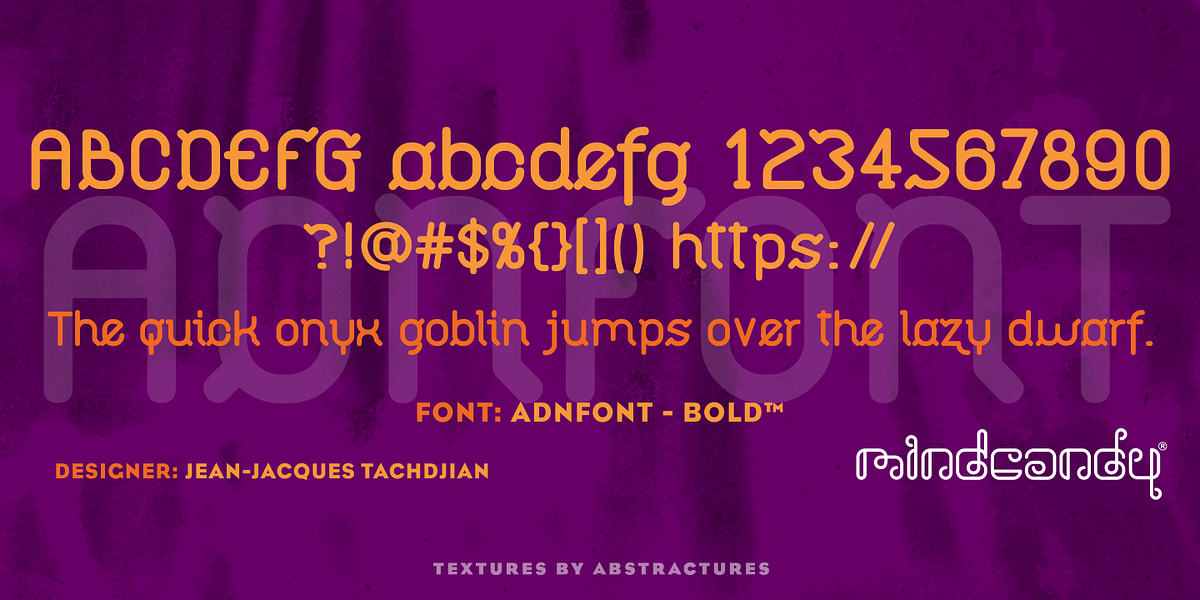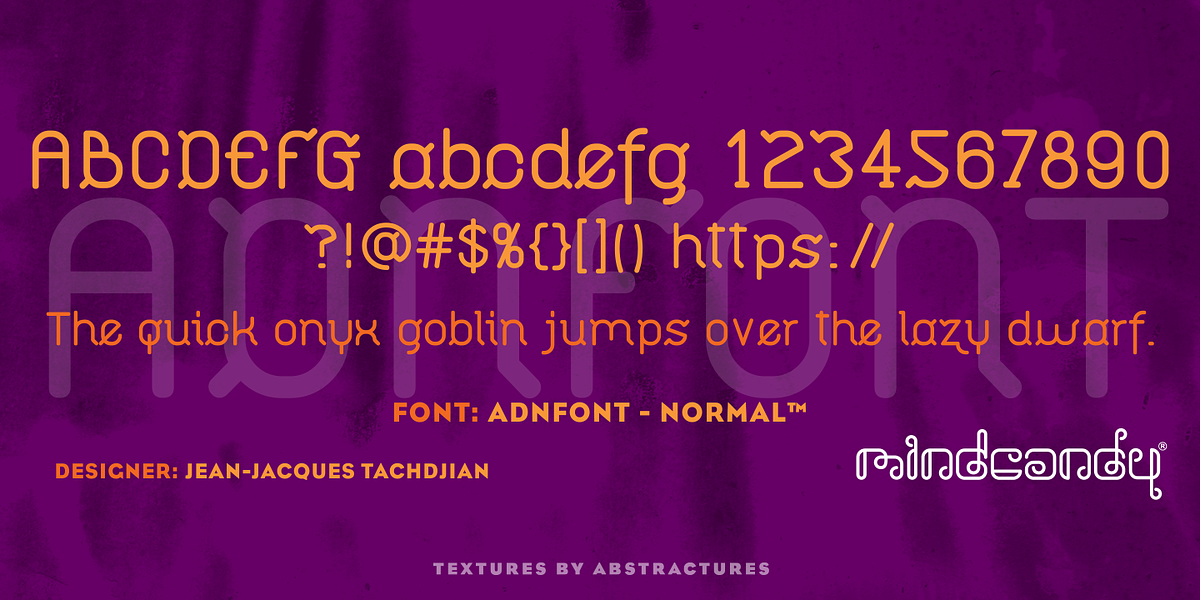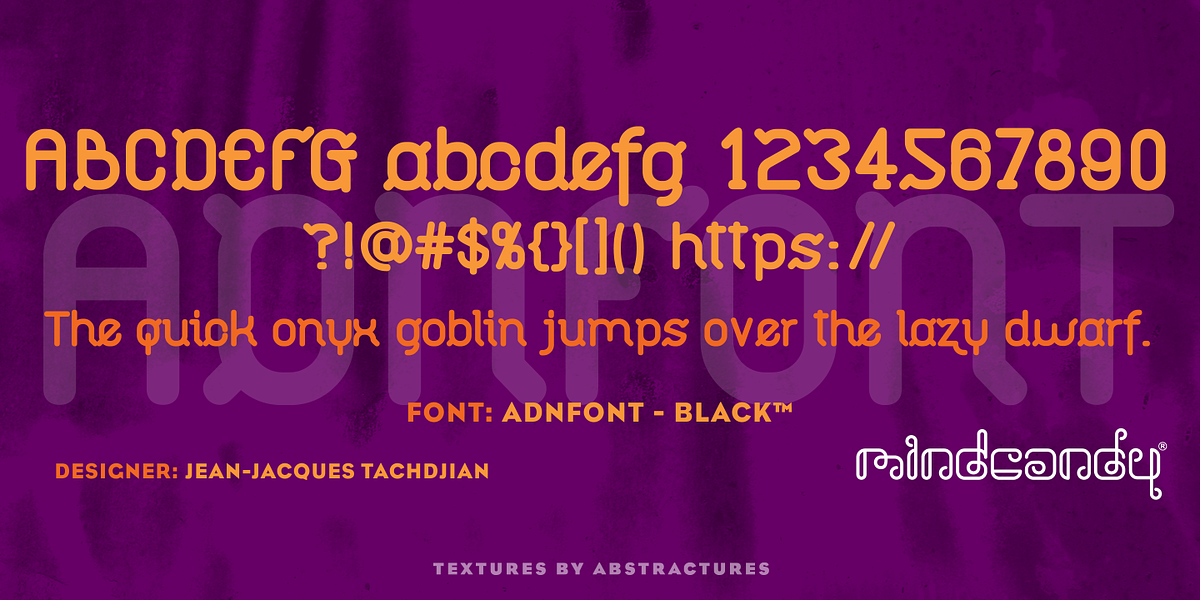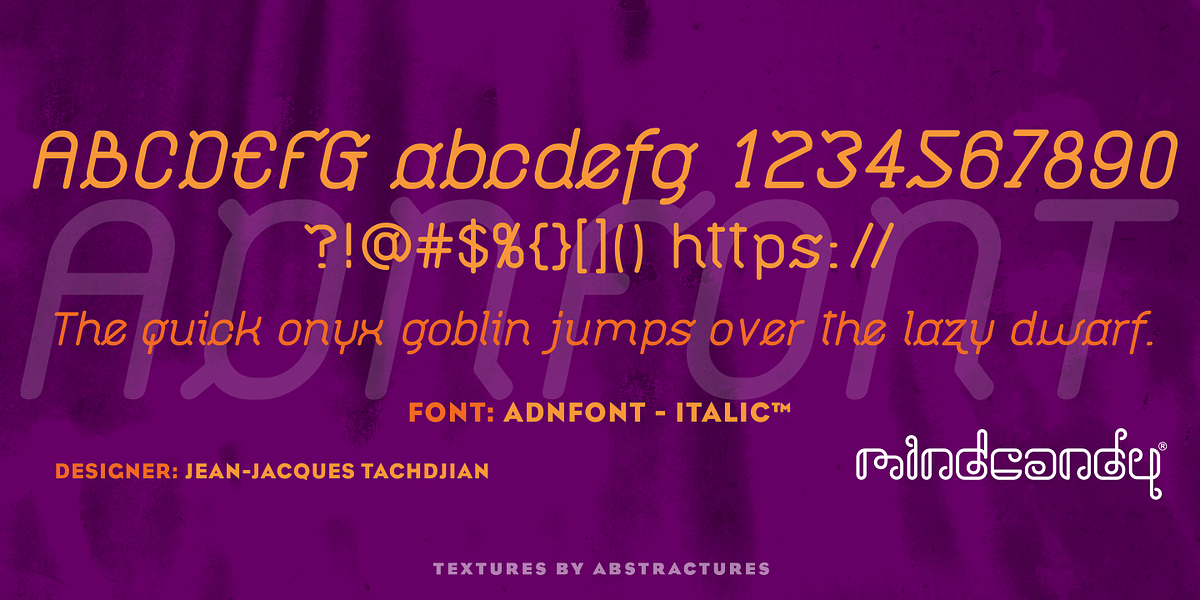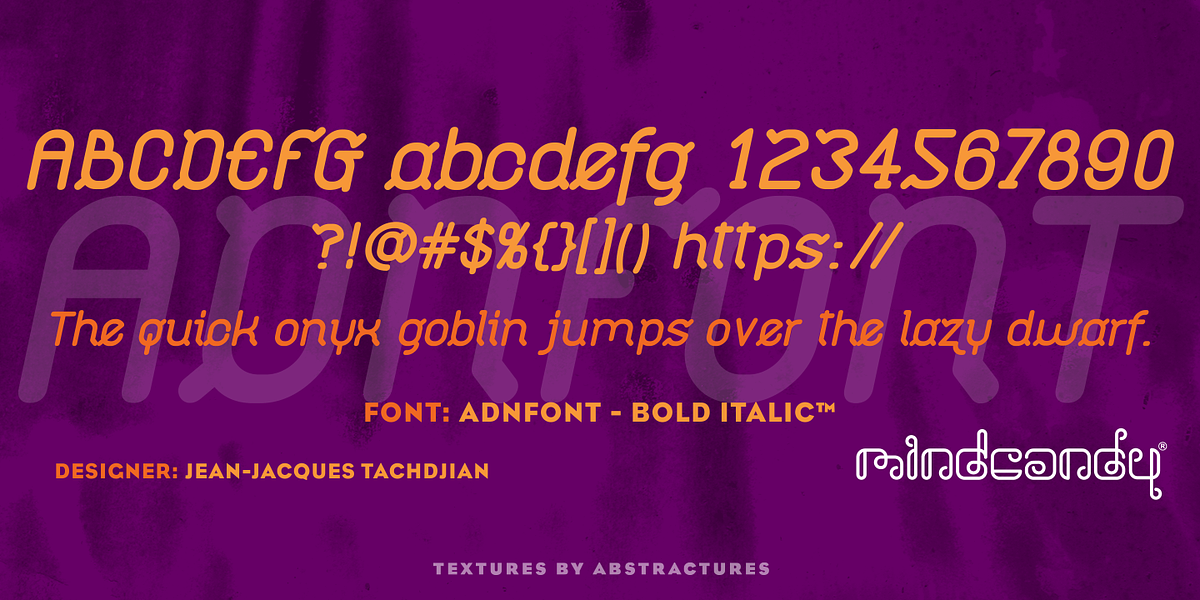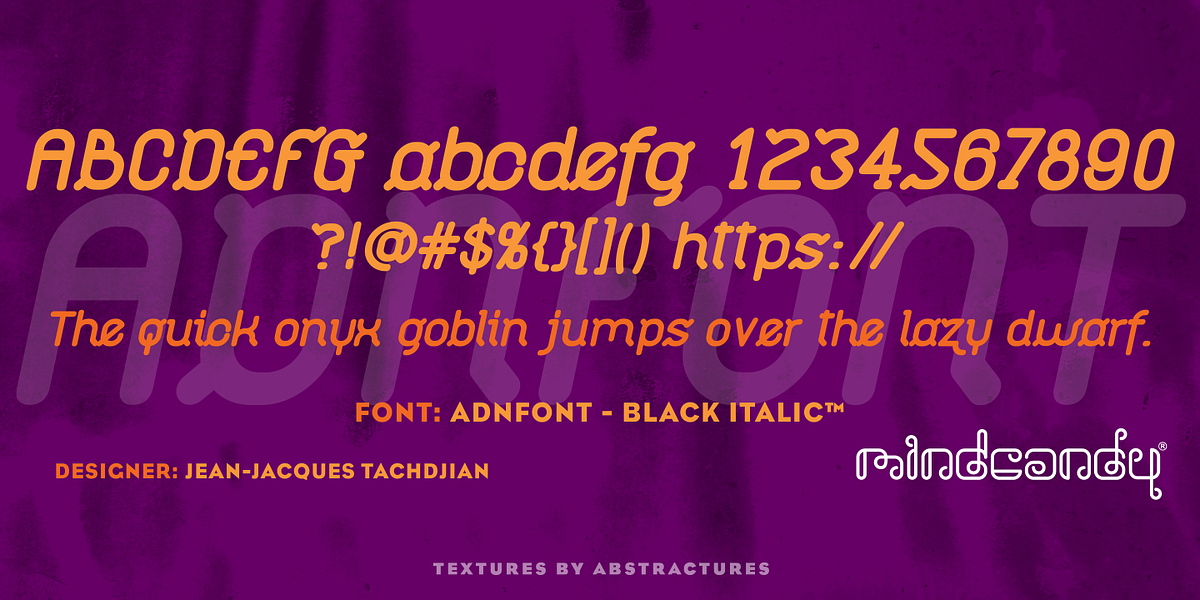
Adnfont™
The Adnfont™ family is a contemporary sans-serif font with geometric influences. Its design incorporates subtle serifs on specific characters, enhancing legibility and adding a touch of visual interest. The typeface comes in six weights - Normal, Italic, Bold, Bold Italic, Black, and Black Italic - making it highly adaptable for various design applications. Designed by Jean-Jacques Tachdjian, a renowned typographer from Lille, France, the Adnfont™ family is well-suited for print design, web design, app design, and digital video production.